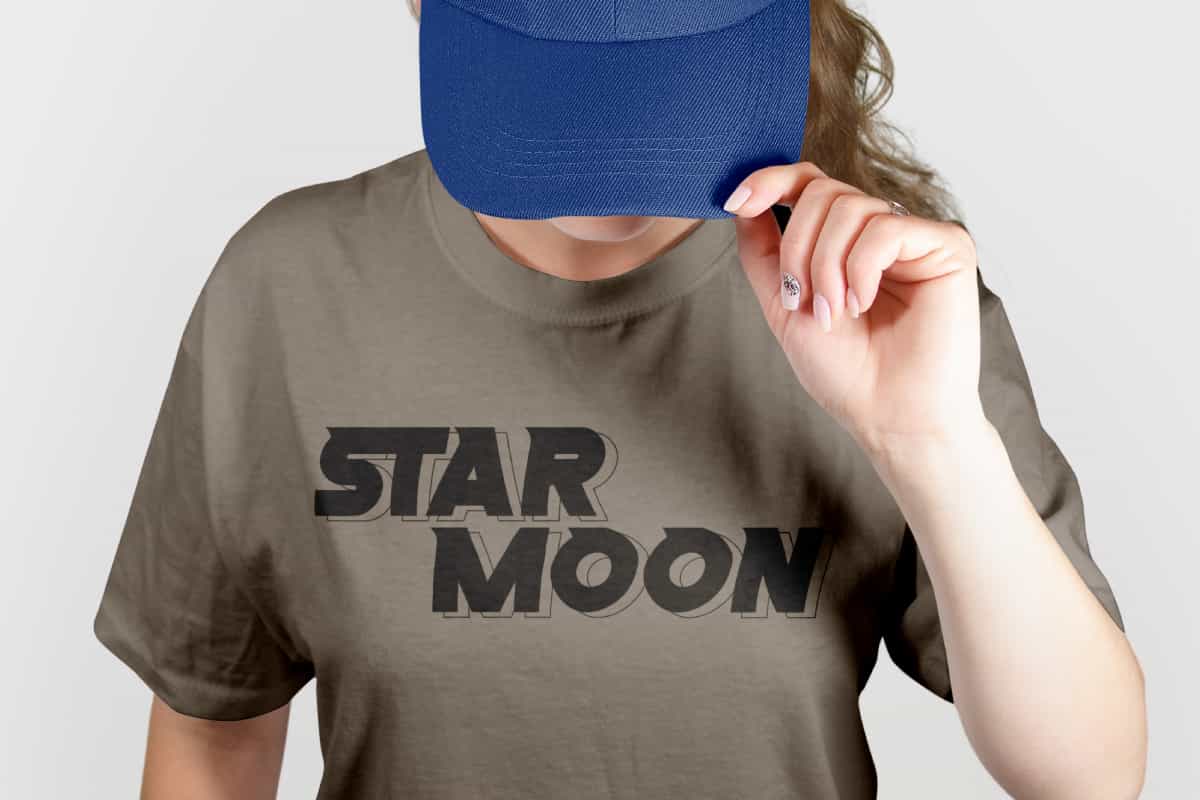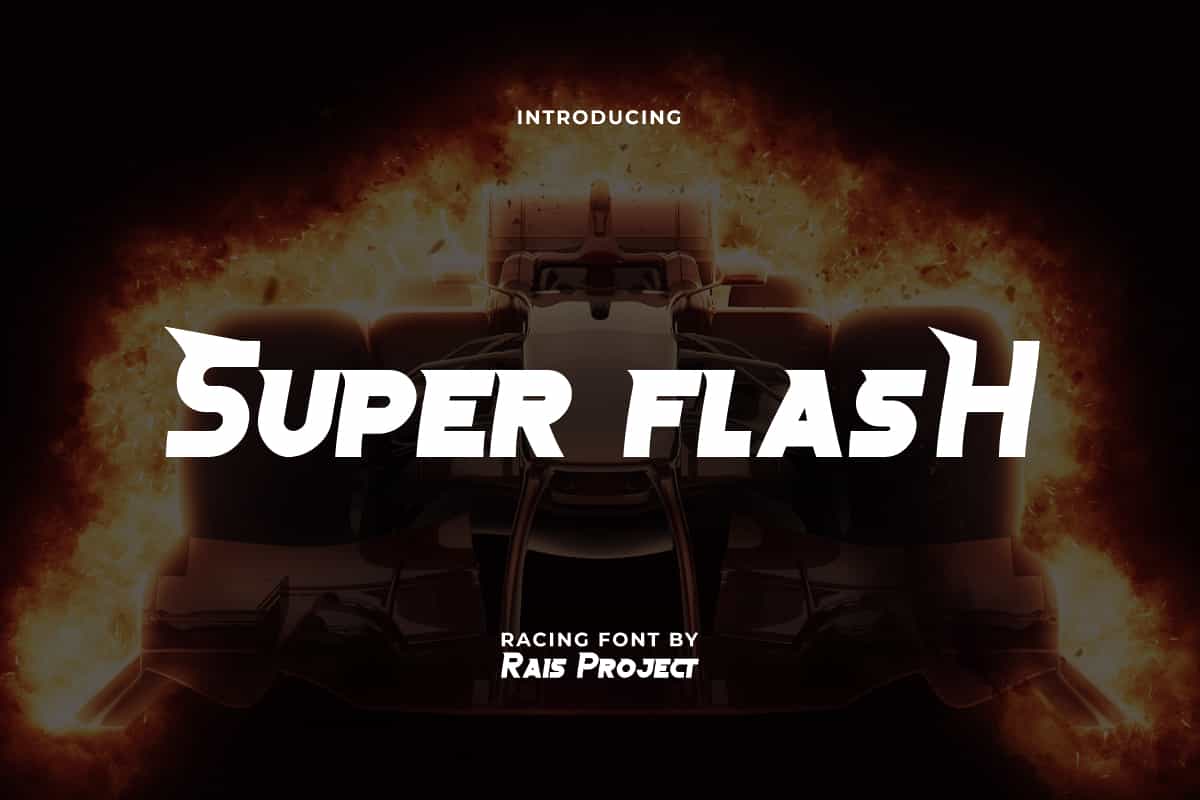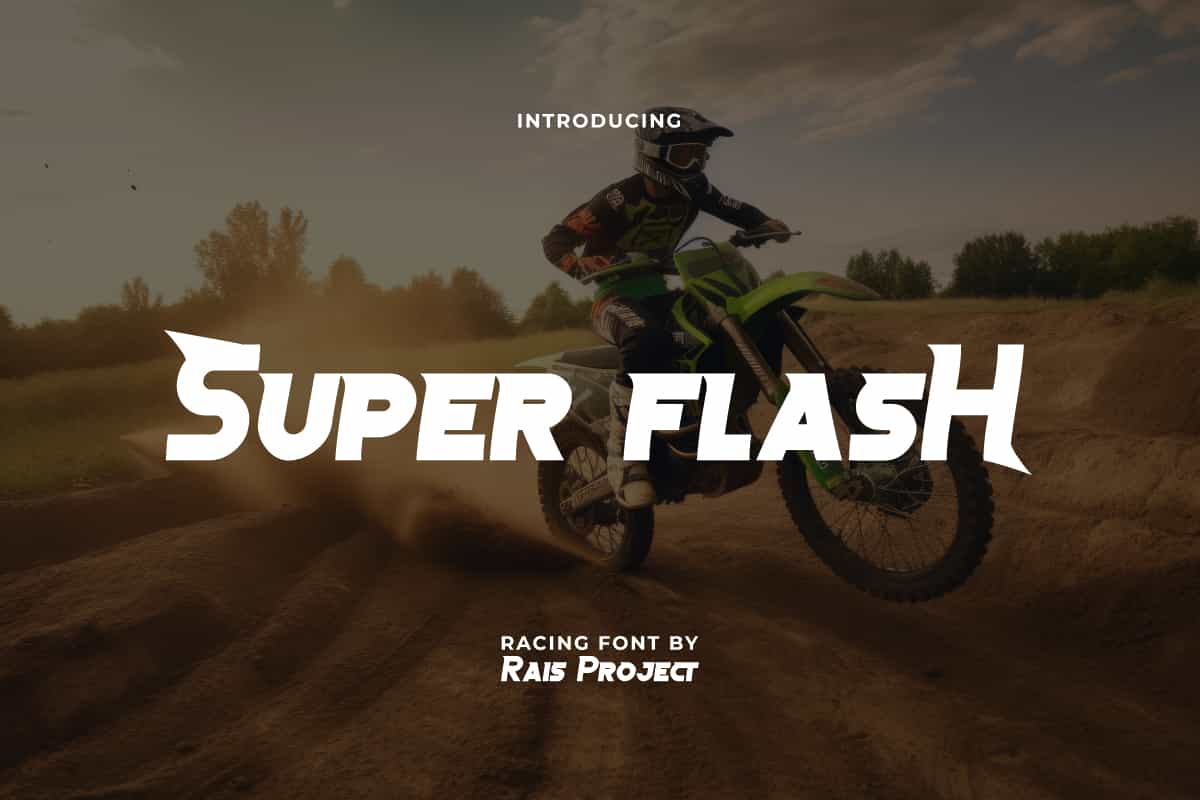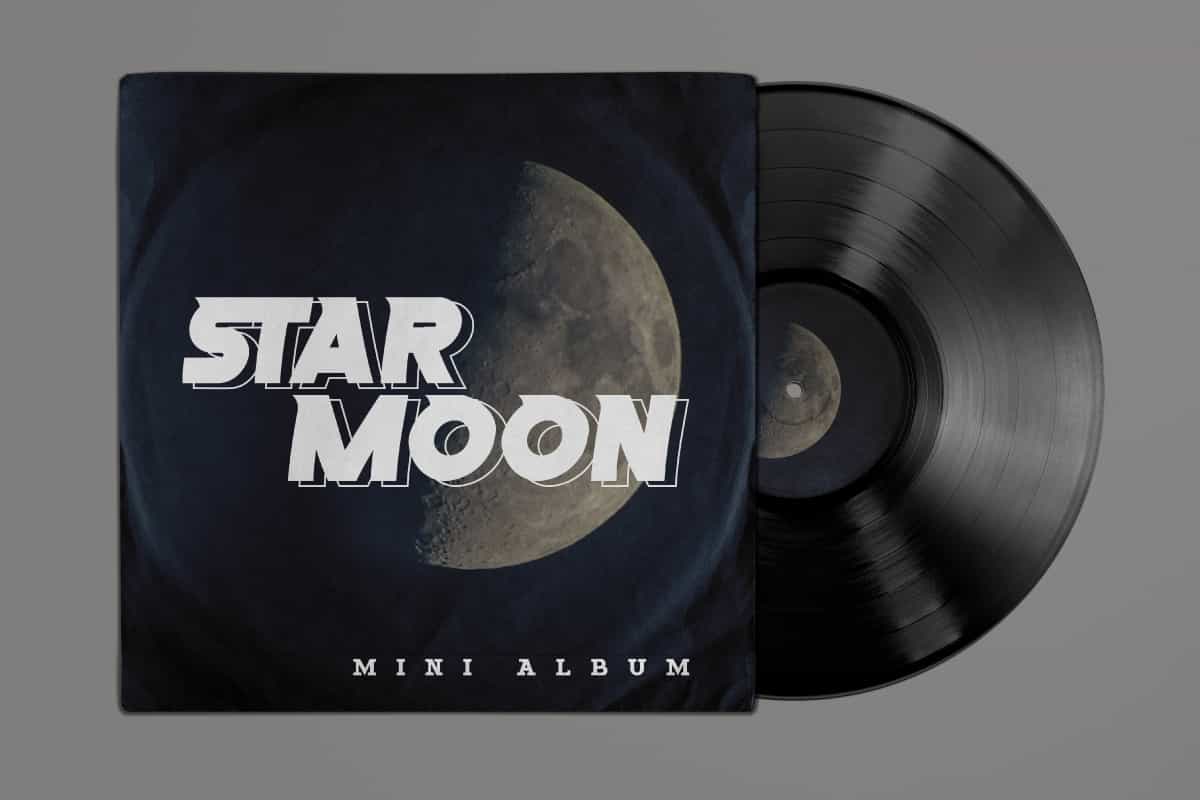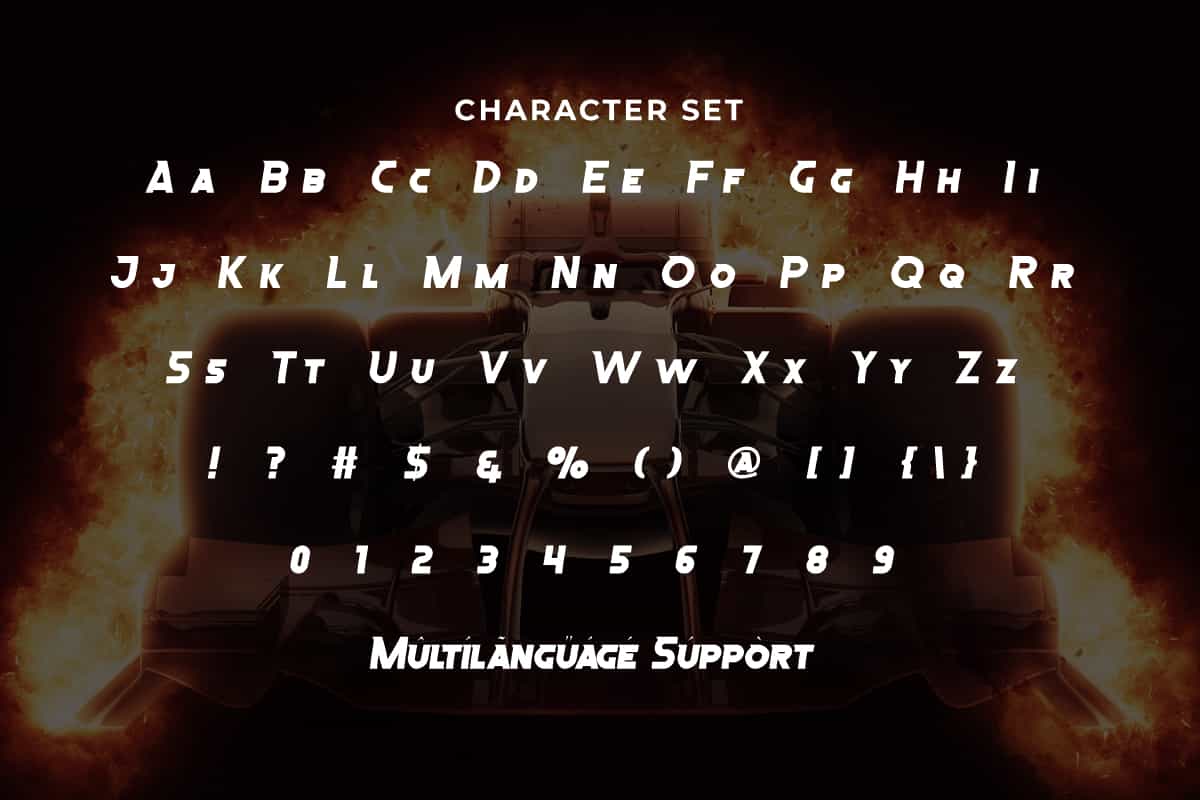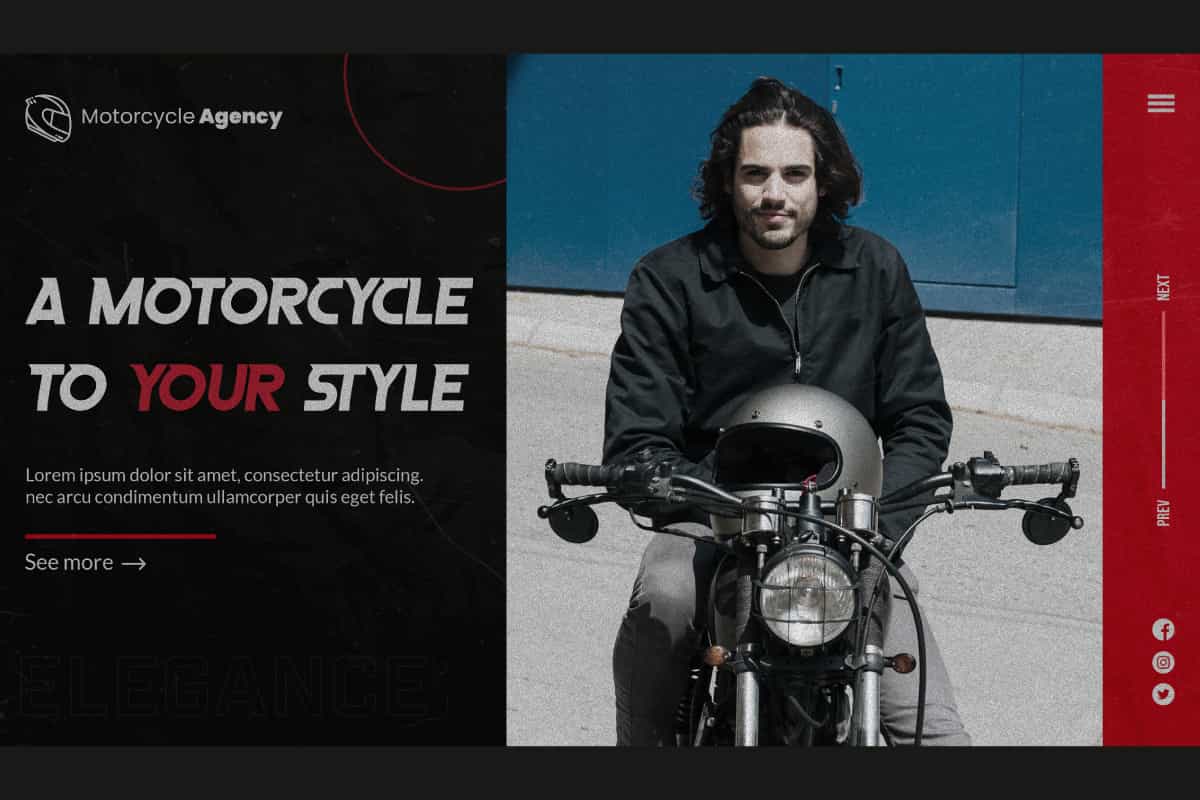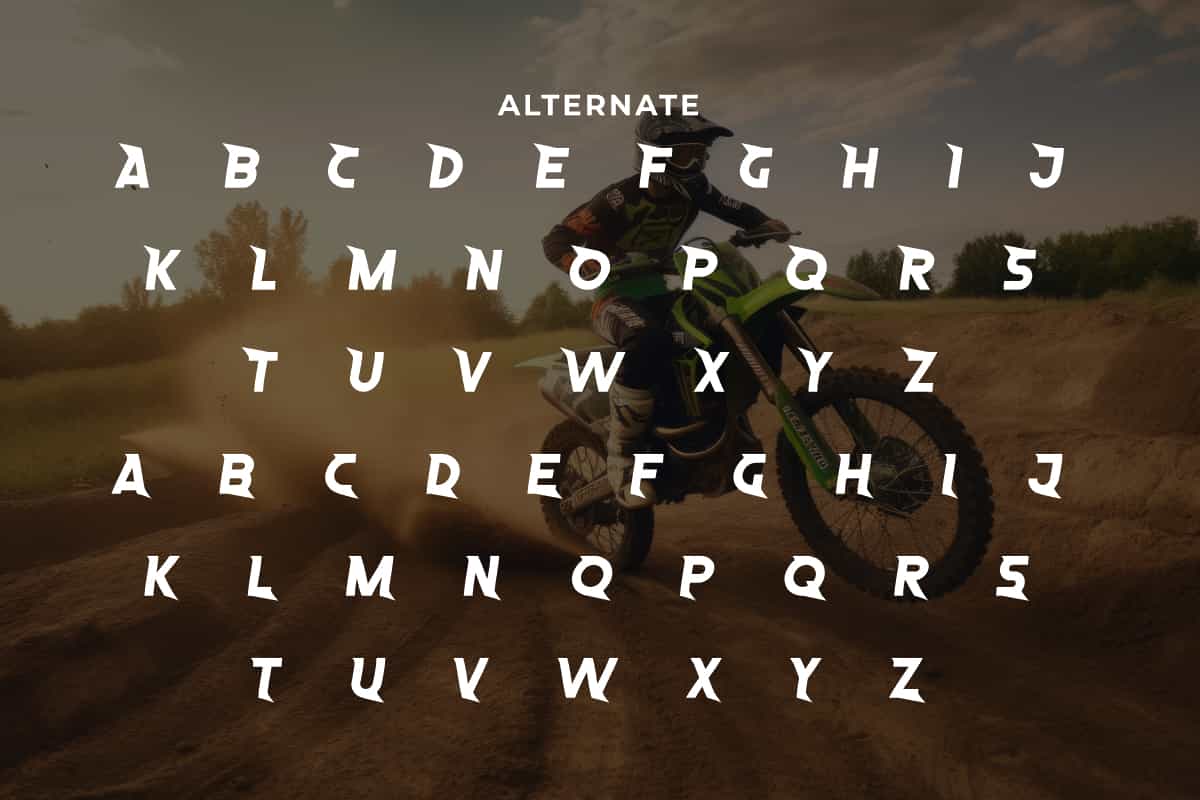
Super Flash Display Font
Super Flash Font is a racing, gaming and incredible display font. Use this font right now to make your design looks awesome!
Super Flash Font is a sharp and unique display font with racing style, created by RaisProject. This display font is perfect for automotive designs because of its style that symbolizes speed. It will be good for any designs, such as custom design, product packaging, quotes, poster, signage, brand image, advertisement, invitation, label, marketing material, stationery, website page, and more! You can see the demo font below, input any word you want so you can see what it looks like:
Super Flash Font includes a full set of ALL CAPS for Uppercase and Lowercase Letters, Numerals, large range of Punctuation, and Alternate character. This bold font will be suitable for various industries, such as automotive, sports, fashion, game, barber shop, cafe, event or festival, photography, printing, publishing, etc. What you get: